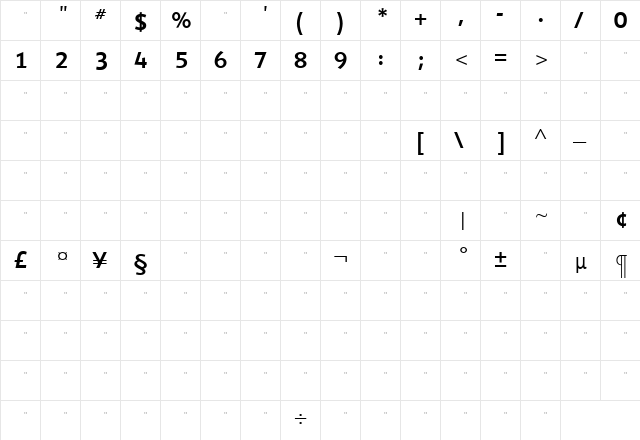
ShinnMediumTab Regular
Regular · Red Rooster Typefounders  ·
Design Context for ShinnMediumTab Typeface
ShinnMediumTab offers clean, dependable letterforms without strong stylistic allegiance, making it a practical choice for designers who need flexibility.